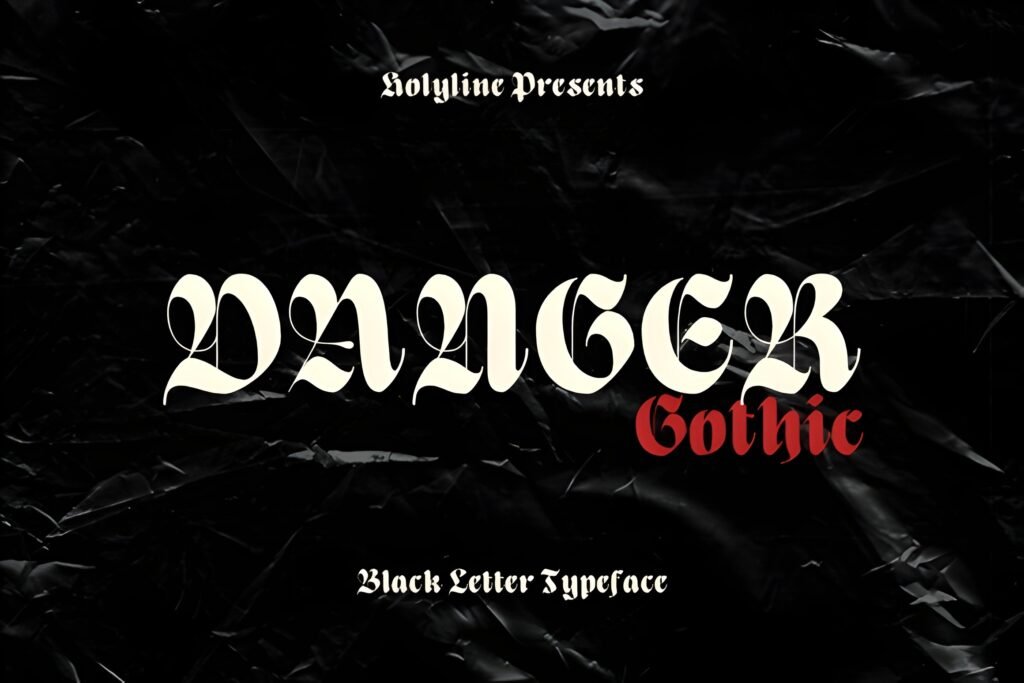
✒️ Danger Gothic — Playful Modern Blackletter Font
Discover Danger Gothic, a casual yet striking blackletter typeface that reimagines the Old English style with a modern twist. Its bold shapes, elegant curves, and unique design make it both playful and sophisticated, offering endless versatility for creative projects.
Perfect for headlines, magazines, custom logos, product packaging, quotes, merchandise, watermarks, social media posts, and labels, Danger Gothic adds personality and flair to any layout. Its contemporary Gothic aesthetic blends tradition with innovation, ensuring your text stands out with confidence and originality.
Whether you’re crafting fashion branding, editorial designs, or bold digital graphics, Danger Gothic transforms words into stylish visual statements — fresh, elegant, and unforgettable. A must‑have font for designers seeking something new, creative, and impactful.